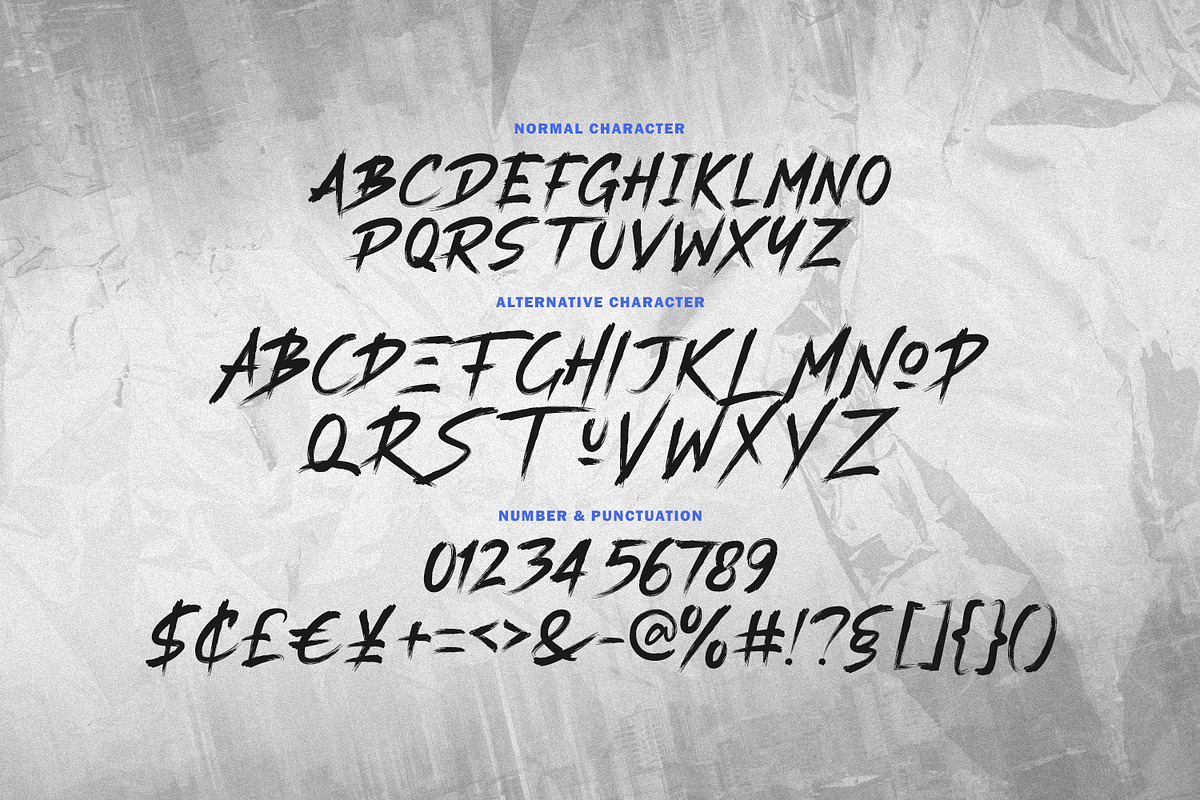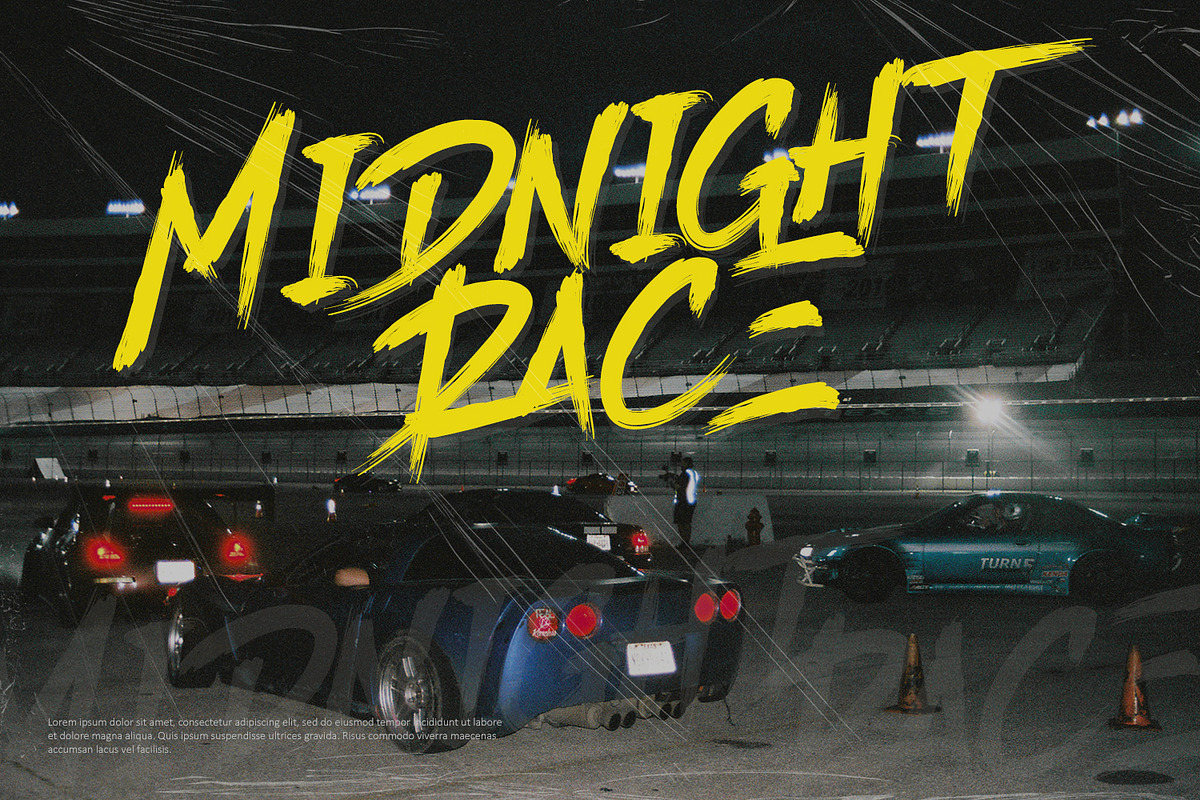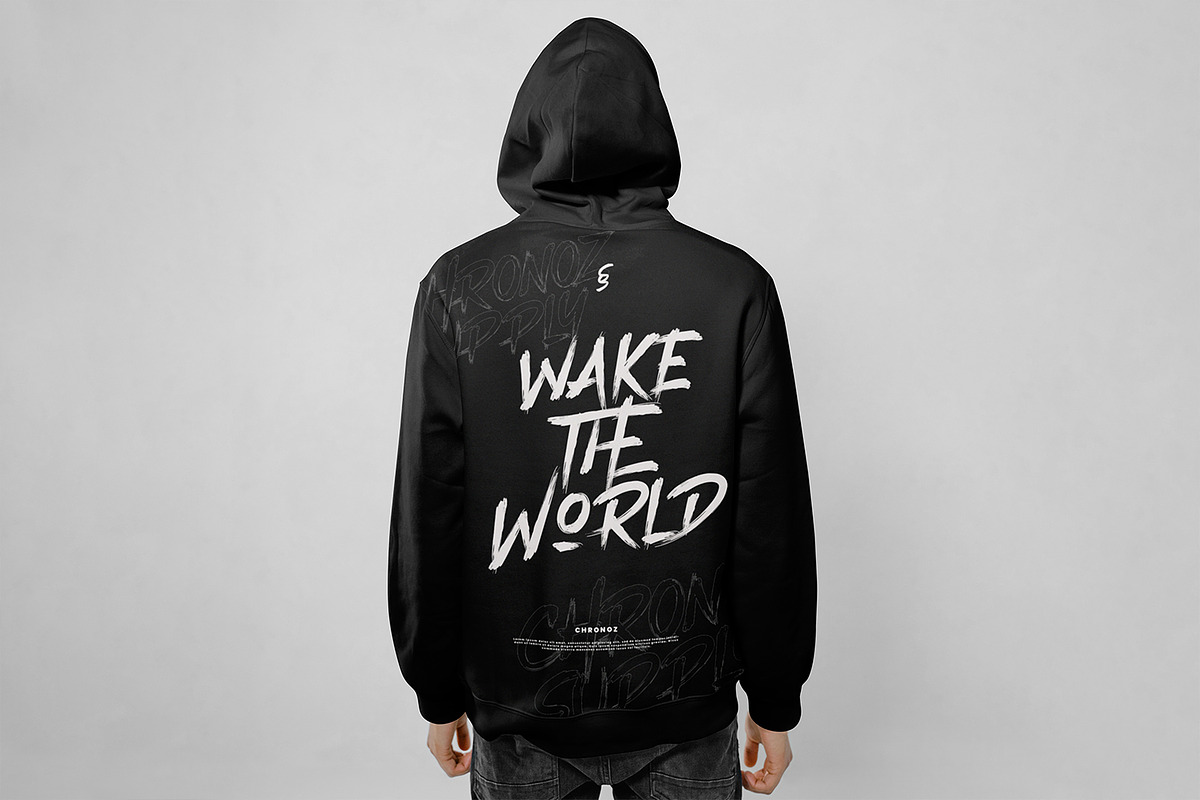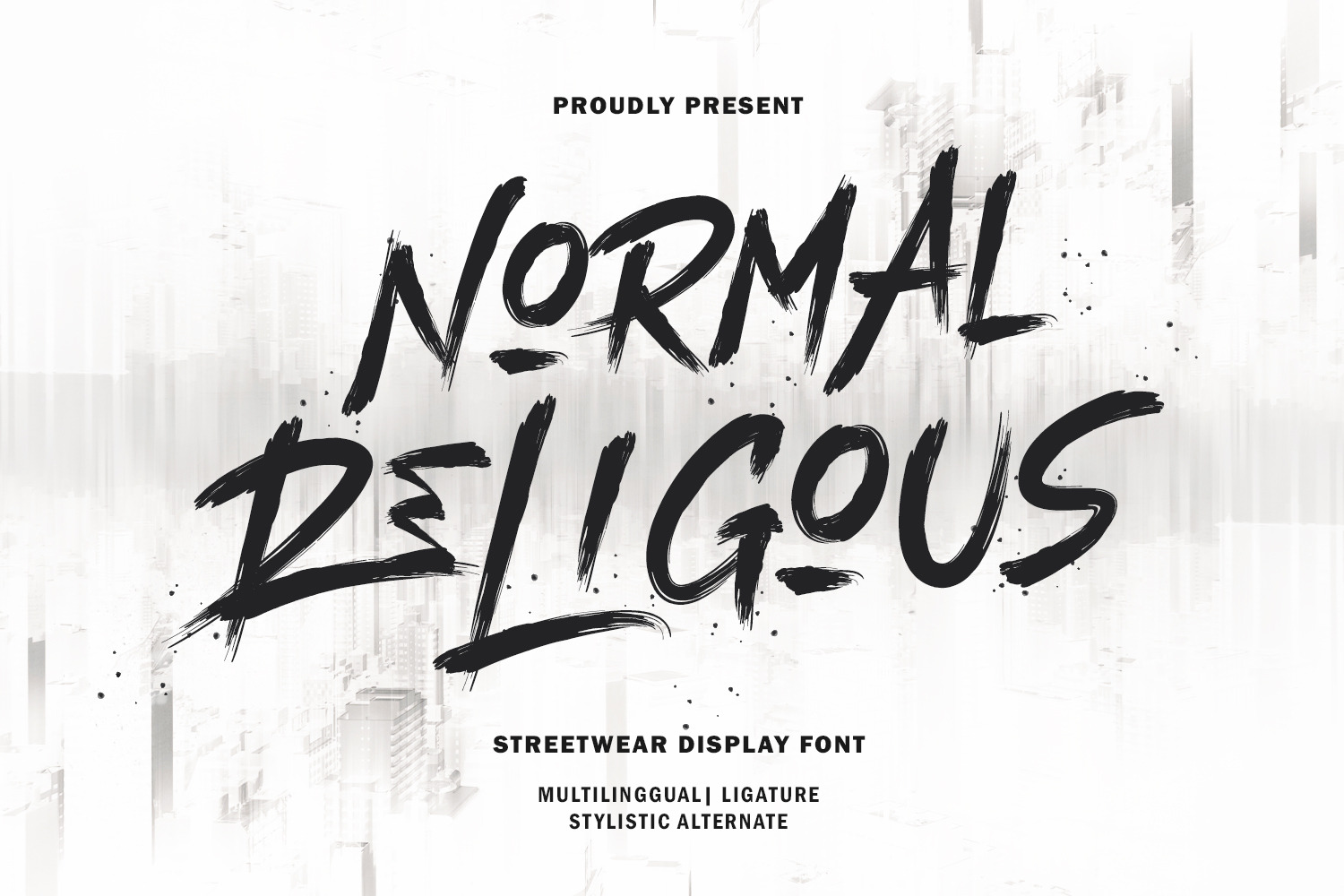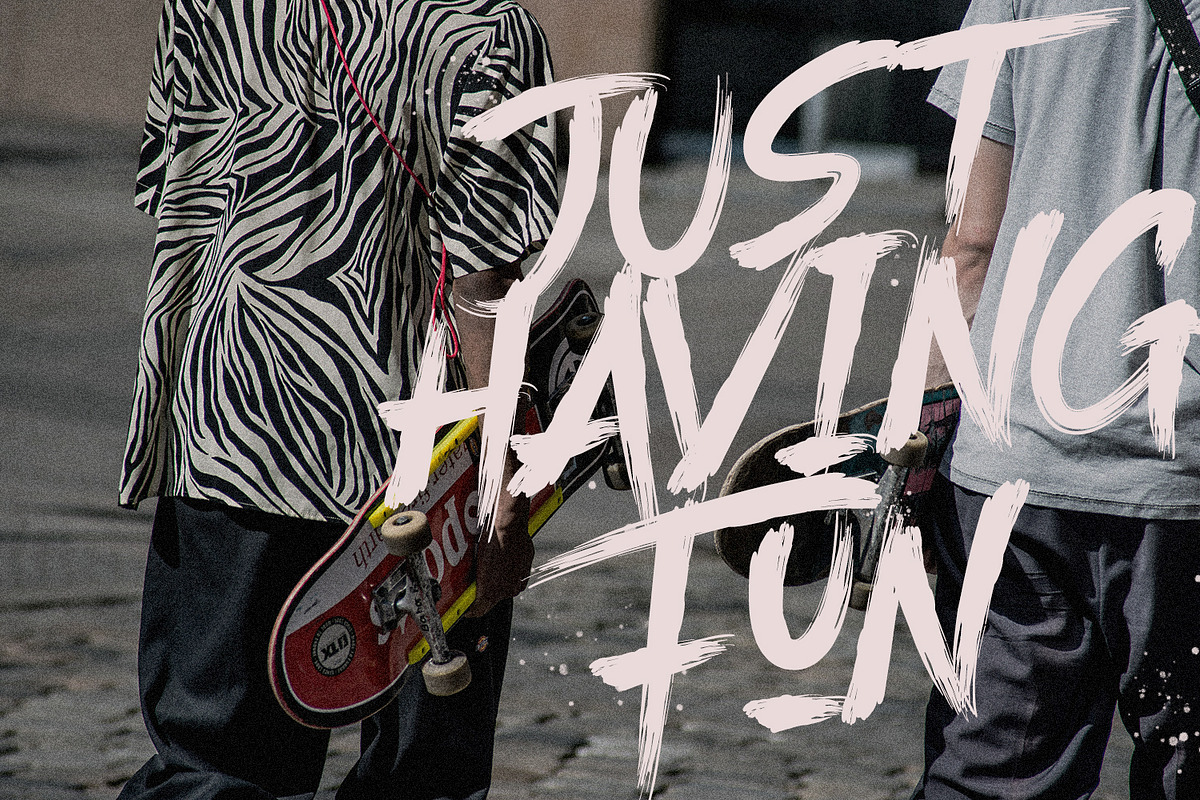
Normal Religous – Brush Font
Normal Religous – Streetwear Brush Font
Normal Religous is a modern bold brush font with raw hand-painted strokes and authentic texture. Designed to bring energy and fearless style into your work, this typeface is perfect for making your design stand out. Its expressive brush details capture the spirit of street art and urban culture, giving a strong and powerful impression to any project.
Whether you’re creating logos, posters, logos, album covers, fashion branding, merchandise, or social media content, Normal Religous is the font that adds bold personality and a unique artistic touch.
- Unique ligatures for a natural flow
- Stylistic alternates